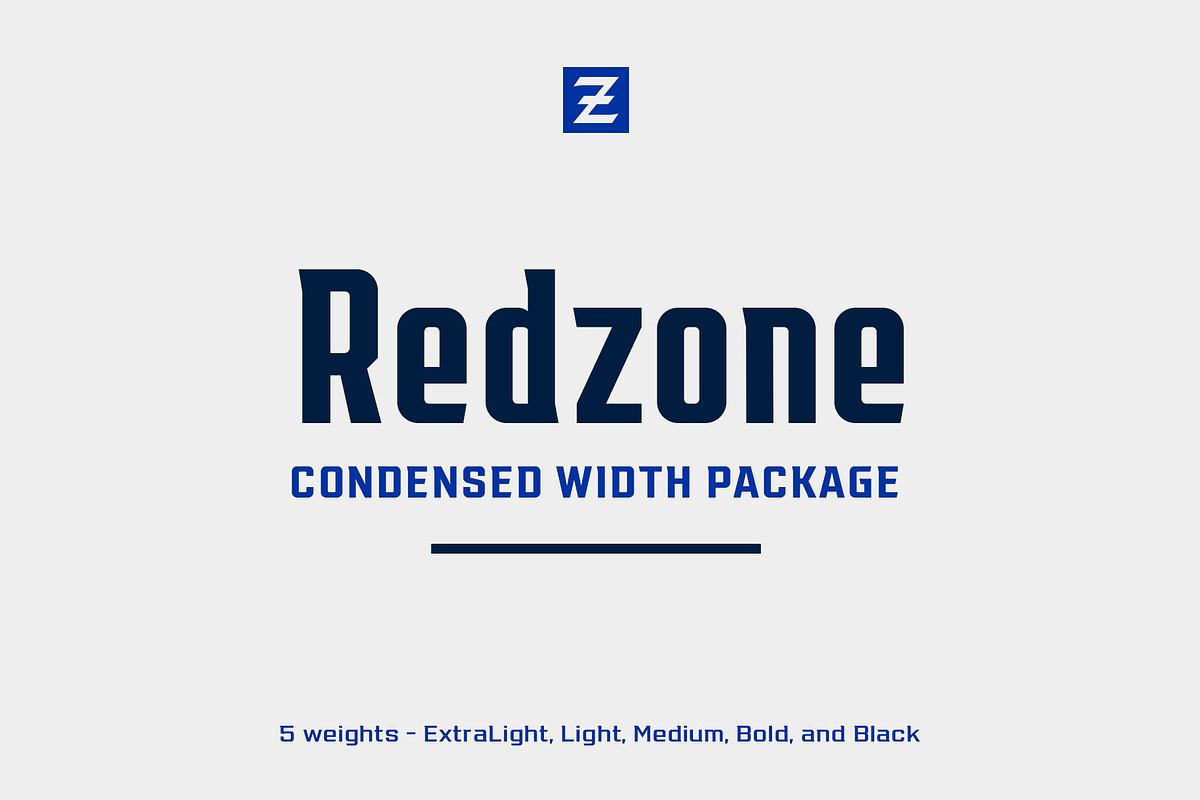
Redzone Display – Condensed Font
Introducing Redzone Display – Condensed, a dynamic typeface designed by VarsityType. Originally developed for the fictional "Ultimate Football League," Redzone combines competitive spirit with sophistication. Its angled terminals and sharp serifs across five weights and widths make it particularly effective for headlines and shorter body text.
Features:
• Styles Included: ExtraLight Condensed, Medium Condensed, Bold Condensed, Black Condensed
• Character Set: Uppercase and lowercase letters, numerals, basic punctuation, fractions, and tabular figures
• Language Support: Basic Latin
Usage Recommendations:
Redzone Display – Condensed is ideal for:
• Sports branding
• Team merchandise
• Headlines
• Logos
• Posters